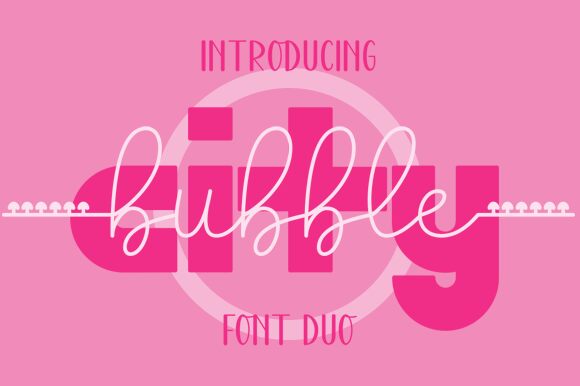
Bubble
Bubble font is a cute script designed by Anjas Cov Cava Lera. Its thin weight adds a light and airy touch to any project. Perfect for creating fun and whimsical designs, Bubble font is ideal for crafting logos, invitations, greeting cards, branding, and more!